When it comes to modern design, less truly is more. Minimalist fonts are having a major moment in 2025, and for good reason—they’re clean, versatile, and incredibly powerful. Whether you’re building a brand, redesigning a website, or creating social media content, a minimalist font can communicate clarity, professionalism, and aesthetic confidence without overwhelming the message. These fonts don’t scream for attention—they earn it through subtle elegance.
What makes a minimalist font stand out? It’s not just about thin lines or lots of white space. A great minimalist typeface strikes the perfect balance between form and function. It’s readable at every size, pairs well with both imagery and text-heavy layouts, and has just enough personality to leave a lasting impression. This year, we’re seeing an exciting blend of geometric sans-serifs, modern grotesks, and warm humanist styles—each bringing its own clean energy to the design table.
So, if you’re looking to level up your visual identity with fonts that speak softly but leave a strong impact, you’re in the right place. We’ve handpicked 20+ of the best minimalist fonts of 2025—fonts that are not only trending but also timeless. From premium picks to stunning free options, these typefaces are ready to elevate your next creative project.
Wensley is a modern high-class serif font typeface. Font family includes all basic glyphs with Non-English characters. This font will pair beautifully with the script, signature or handwriting style. Wensley is perfect for headlines, titles, magazines headings, logo’s, presentations, posters, name card, web layouts, invitations, books, branding, and nearly any creative design.
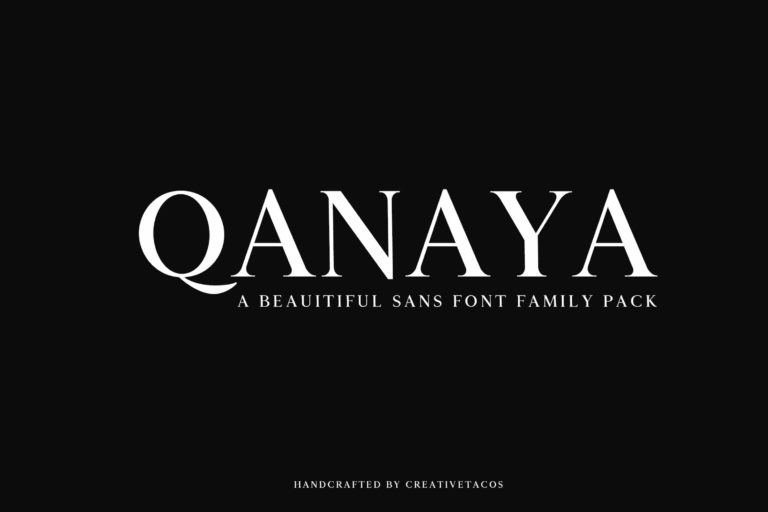
Qanaya is a brand new beautiful rounded serif font family with wide choice of weights. It includes all basic glyph with multilingual support. Qanaya can be used for logo, greeting cards, posters, branding, name card, stationary, design title, blog header, quotes, typography, headlines, packaging, presentations, titles, magazines, headings, web layouts, advertising, invitations, packaging design, books, and nearly any creative design.
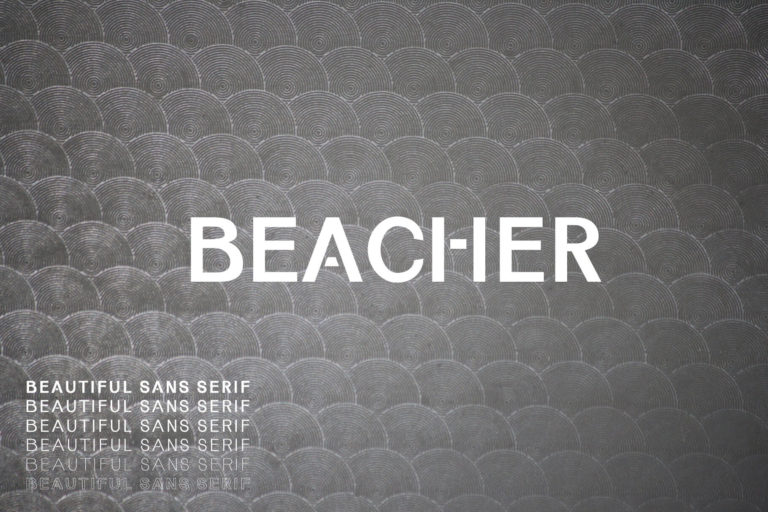
Beacher Sans Serif Font is a set of 6 weights font family. It is good for making creative templates and stationary. Beacher typeface suits best for modern / clean designs, logos, headlines, banners and templates etc. It looks gorgeous in all caps with a wide-set spacing if you want to try a classy look, or beautiful on its own in capital and lowercase letters for something completely timeless.
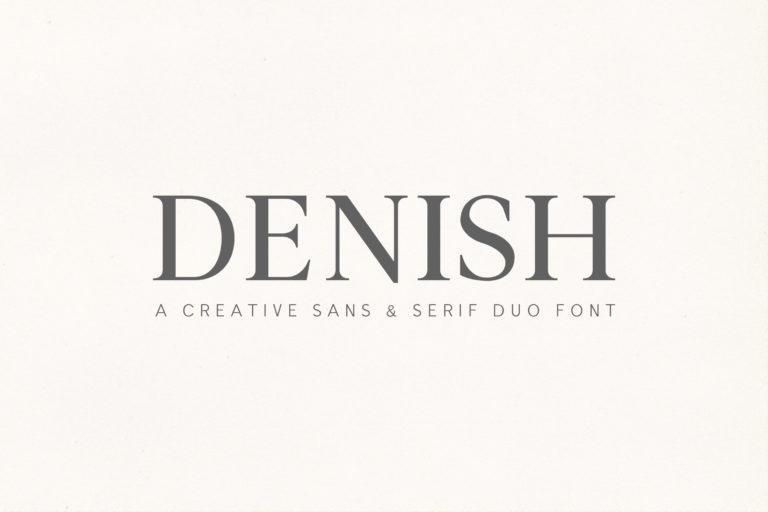
Denish is a gorgeous and sophisticated serif and sans serif font duo are perfect pair to make your design fresh and innovative. It includes uppercase, lowercase, number, punctuation, symbols, with non-english characters. Denish makes it perfect for posters, greeting cards, stationery design, magazine layouts, stickers and stencil design, prints, logotypes, branding, name card, stationary, etc.
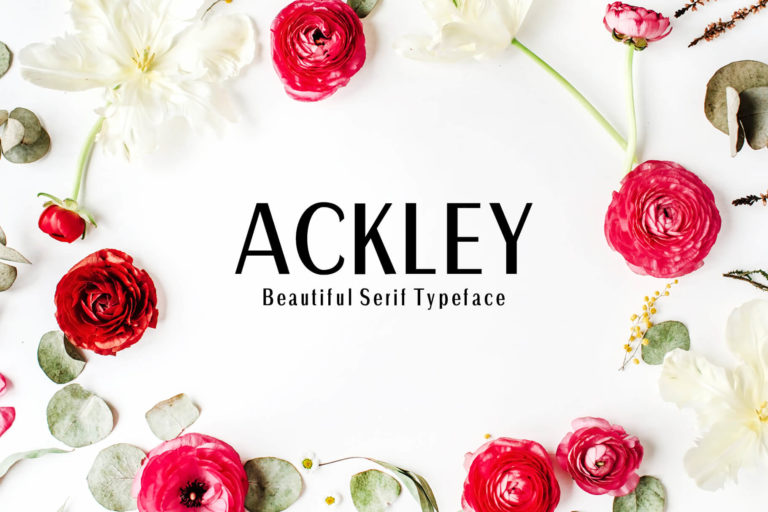
Ackley Sans Serif Typeface is a beautiful and professional sans serif font, which contains 7 weights and It features unique and modern sans serif look and feel. Perfect for gorgeous logos, titles, web layouts and branding. It looks gorgeous in all caps with a wide-set spacing if you want to try a classy look, or beautiful on its own in capital and lowercase letters for something completely timeless.
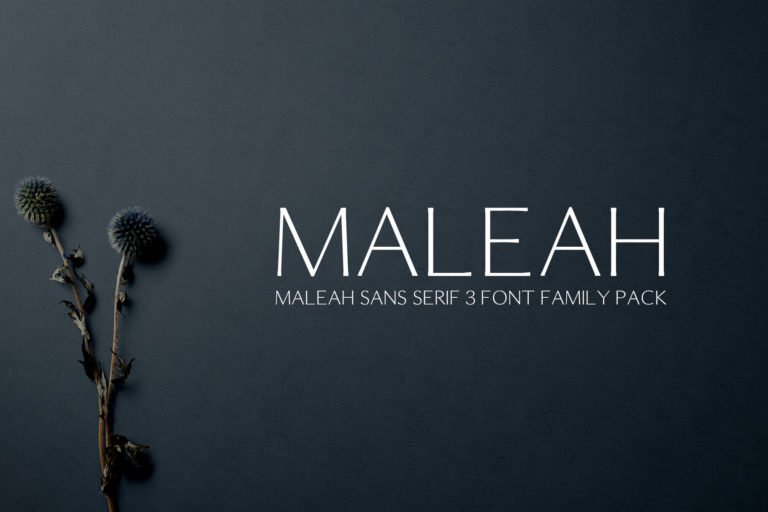
Maleah Sans Serif 4 Font Family Pack features unique and modern serif look and feel. Perfect for gorgeous logos, titles, web layouts and branding. It looks gorgeous in all caps with a wide-set spacing if you want to try a classy look, or beautiful on its own in capital and lowercase letters for something completely timeless.
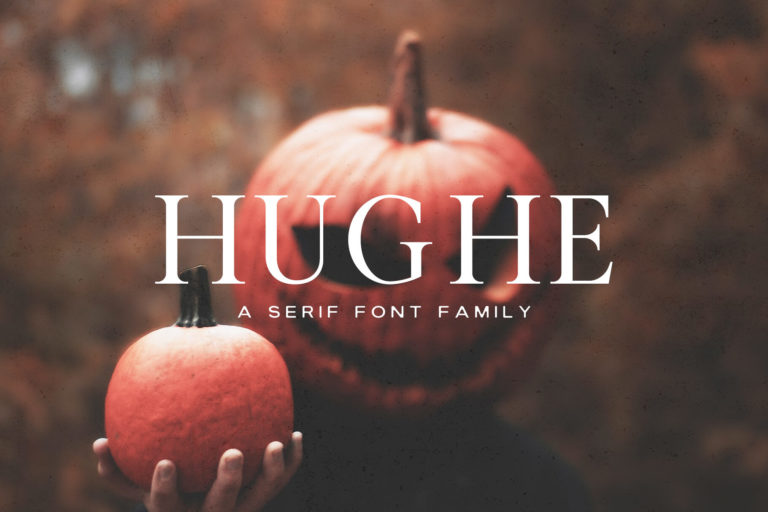
Hughe is an astonishing all-round serif typeface. It includes all basic glyphs and support multilingual characters. You can use it for your next handcrafted projects like: flyer, posters, banner, illustration, presentations, logo, horror, quotes, titles, magazines headings, web layouts, advertising, invitations, packaging design, CD cover, books, Christmas, Halloween and nearly any creative design.
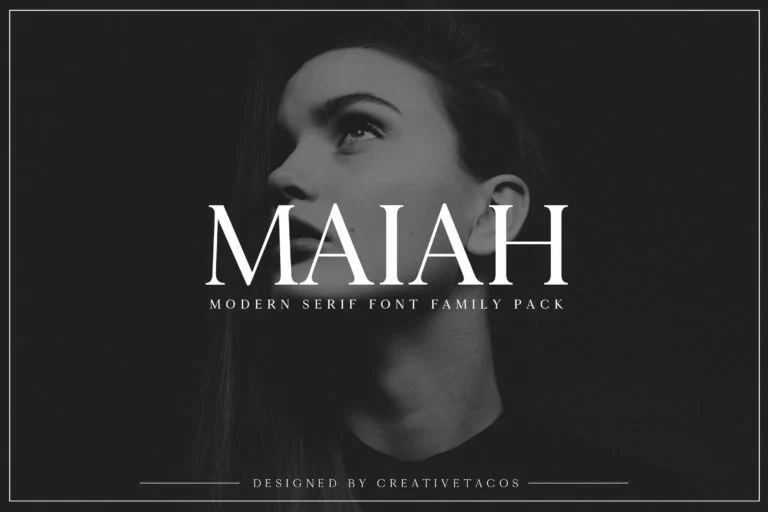
Maiah is a modern and minimalist serif typeface which will add charm into your designs. It comes with 4 weights: Regular, Thin, Light and Bold versions, which contains uppercase and lowercase alphabet, numbers, basic punctuation with multilingual support. This font will pair beautifully with the script, signature or handwriting style. Maiah can be used for headlines, posters, branding, packaging, presentations, logo, quotes, etc.
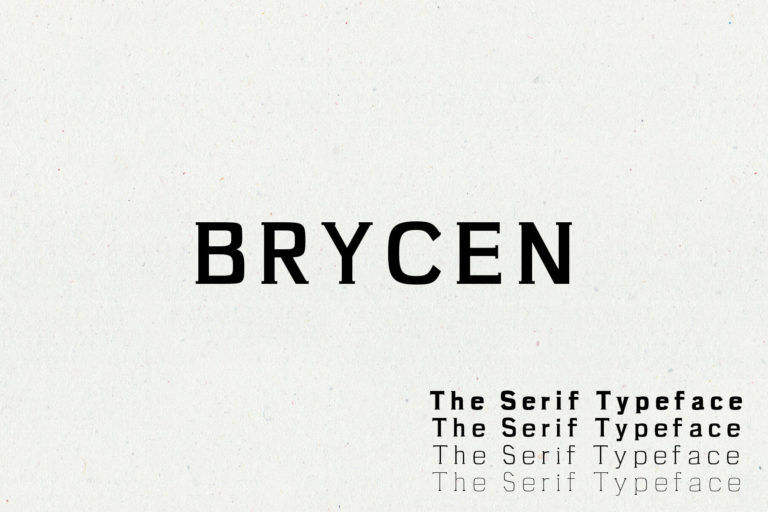
Brycen Serif Premium Font Family is a clean serif font family, which contains 7 weights and It features unique and modern serif look and feel. Perfect for gorgeous logos, titles, web layouts and branding. It looks gorgeous in all caps with a wide-set spacing if you want to try a classy look, or beautiful on its own in capital and lowercase letters for something completely timeless.
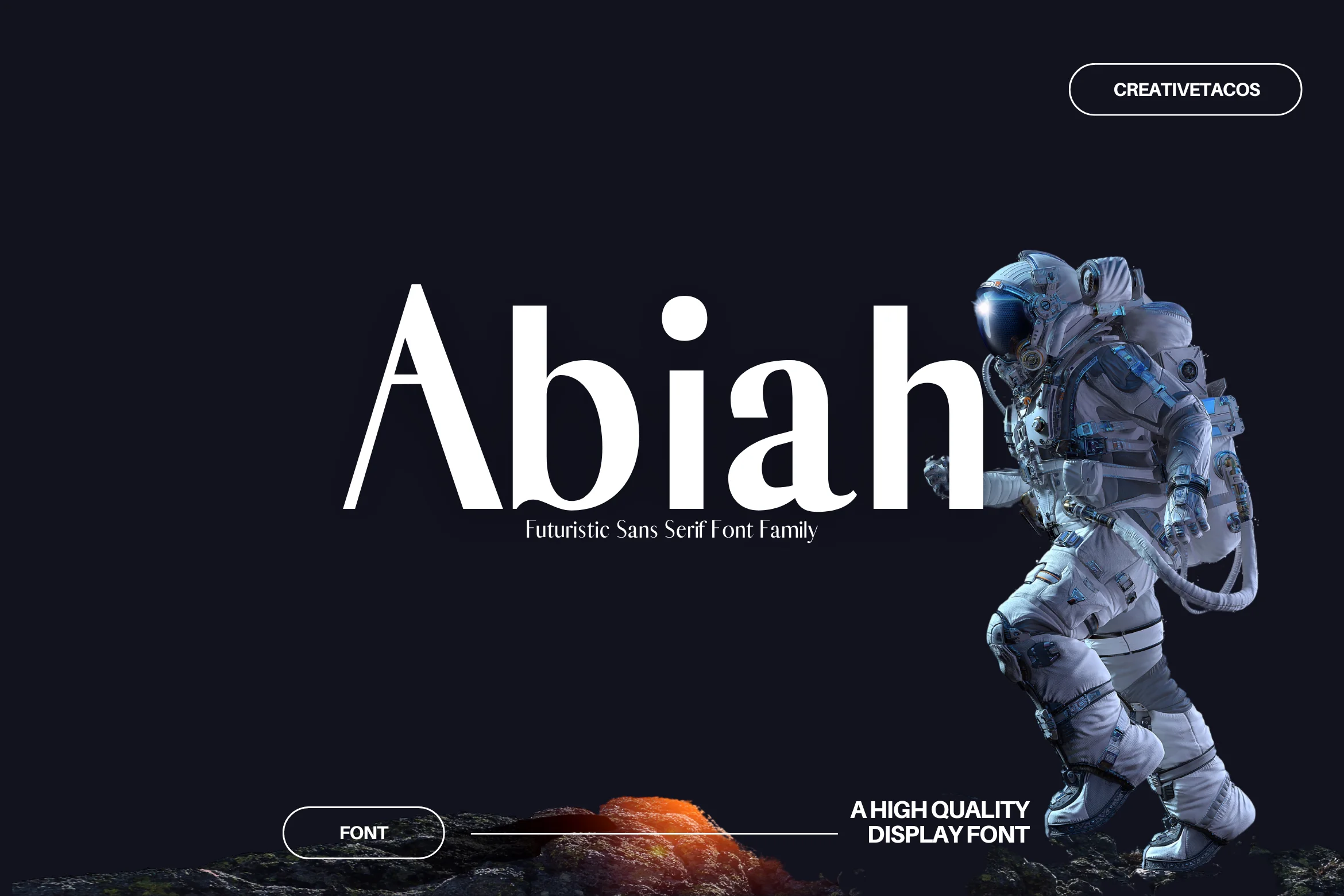
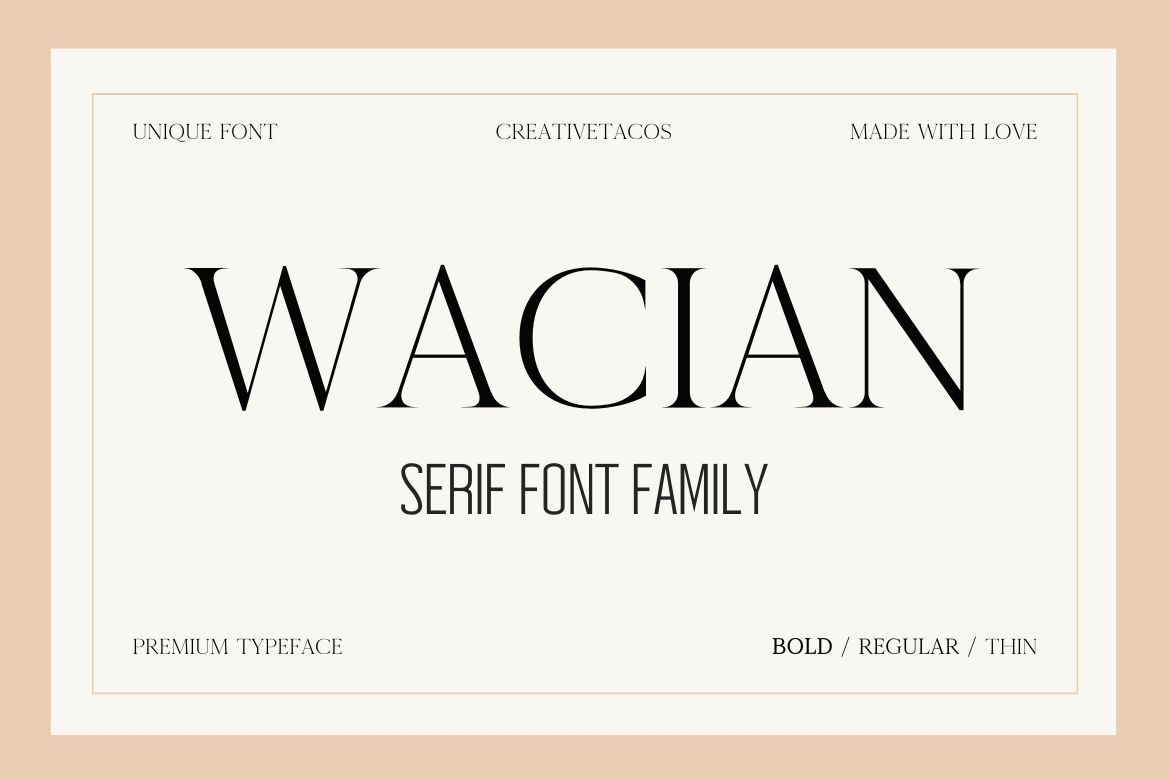
Wacian is a modern serif font that comes in 3 different weights, making it a good pick for many design jobs. It includes all the standard letters and symbols and characters for languages other than English. This font is quite flexible. You can use it to write headlines that catch the eye. If you’re making posters for an event, Wacian’s different styles can help your poster stand out.